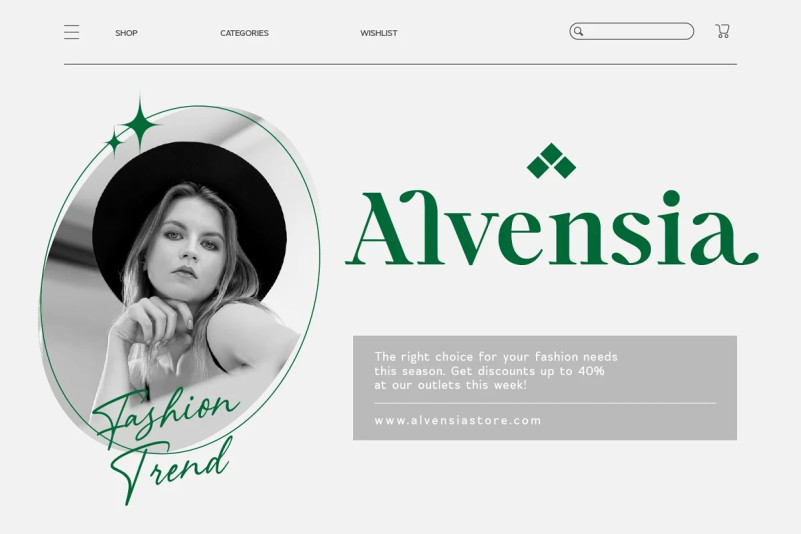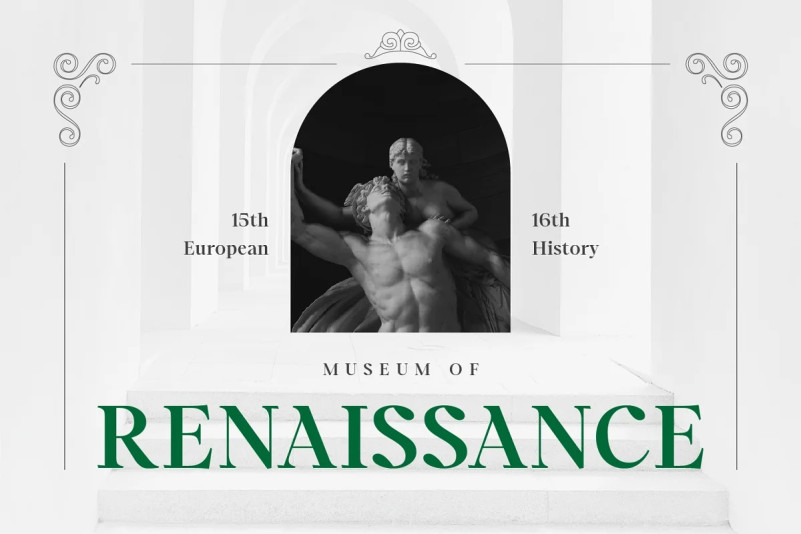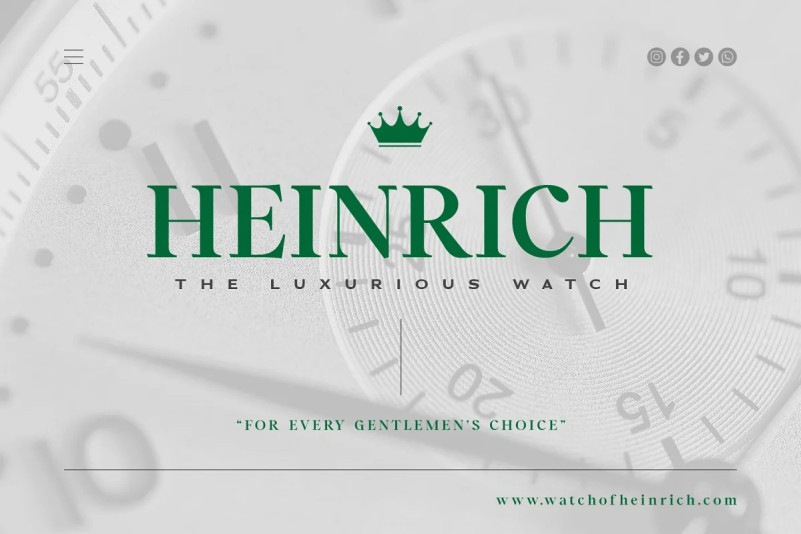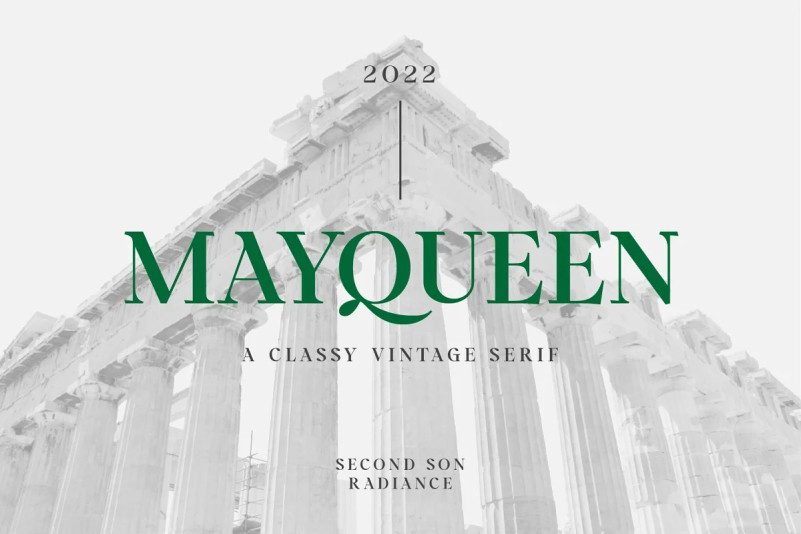
Mayqueen Serif Font is vintage serif typeface, every single letters have been carefully crafted to make your text looks beautiful. It is perfect for your upcoming projects such as luxury logo and branding, classy editorial designs, woman’s magazines, cosmetic brands, art gallery branding, museums, boutique branding, stationery design, blog design, modern advertising designs, card invitations, art quotes, home decor, book/cover titles, special events, and more. Also support Multilingual!